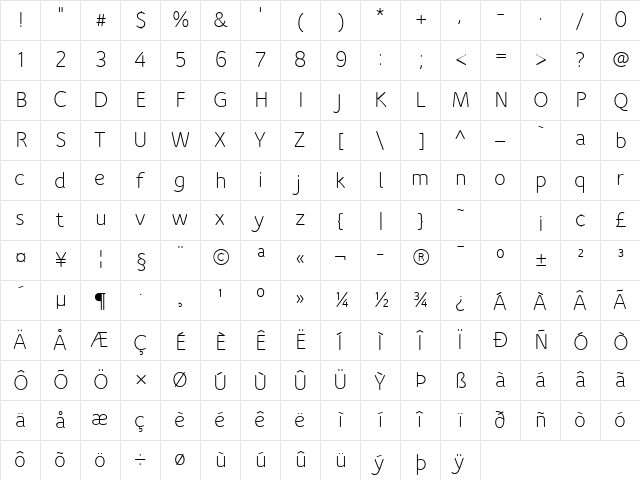
Speak-Regular is a composed and adaptable typeface that performs quietly and consistently across a wide range of design contexts.
Pro Tip: Use Speak-Regular in both headline and body roles to test its range before committing to a single application.